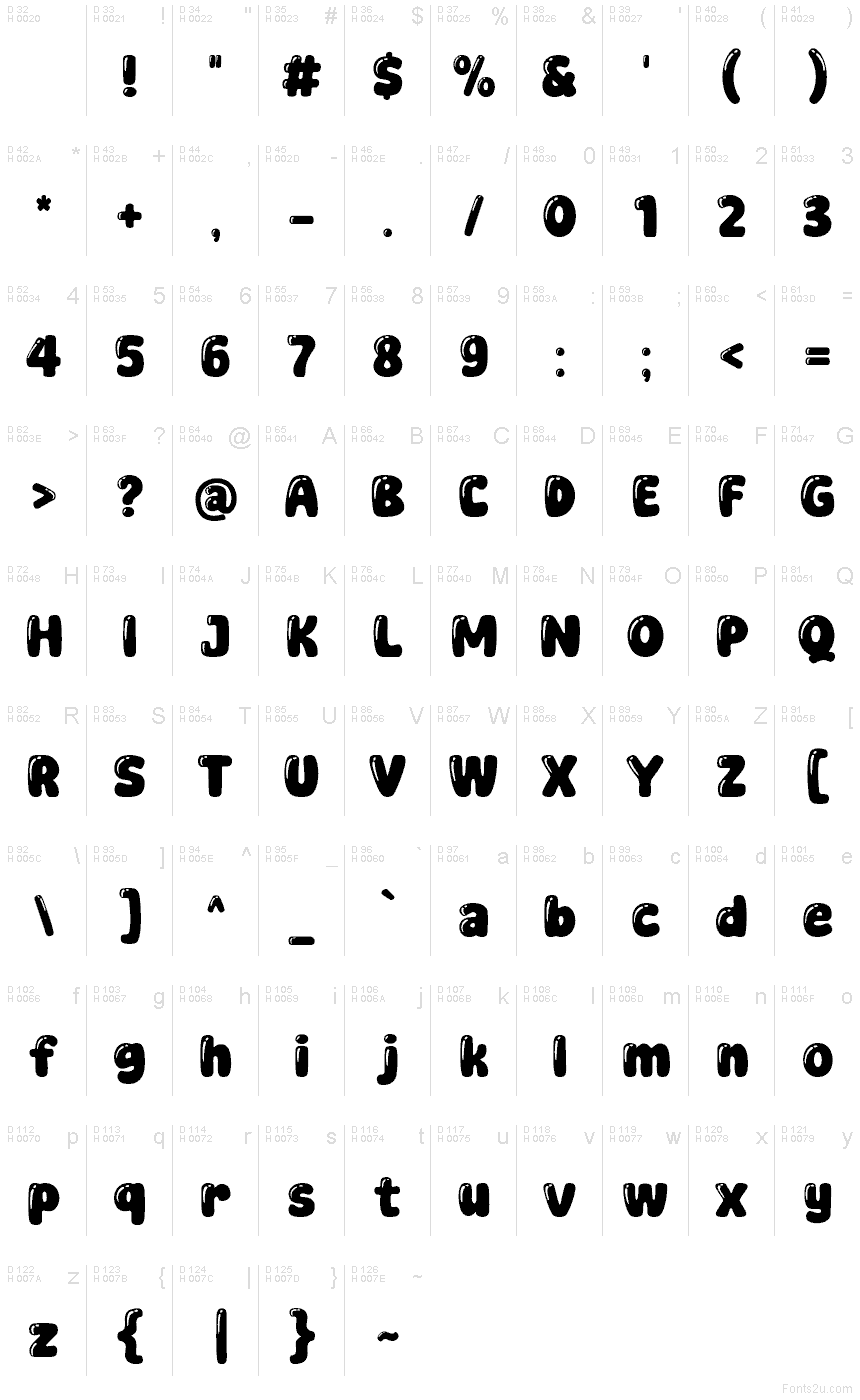
Super Adorable
Super Adorable font by fsuarez913 features cartoon-like display characters with a youthful and friendly presence. This bold font has that highly sought-after retro-inspired look that puts it on the top list of many designers. Its characters are bubbly, cheerful, and have all the lovely qualities typical to a children-oriented type.
This free-to-download font is suitable for titles on comic books, clothes designs, posters for children’s events, book covers, movie posters, and editorial headlines. It can also be used in product packaging, logos & branding (especially for toys), website titles and sections, in addition to gaming interfaces.